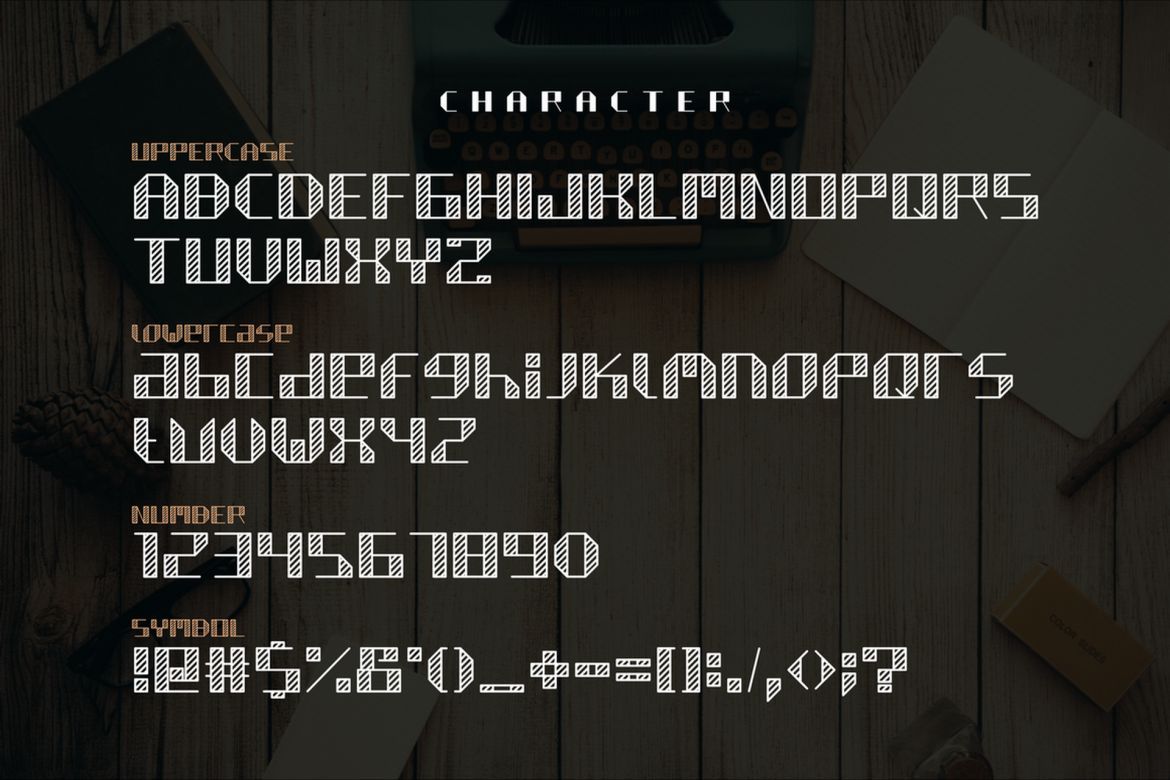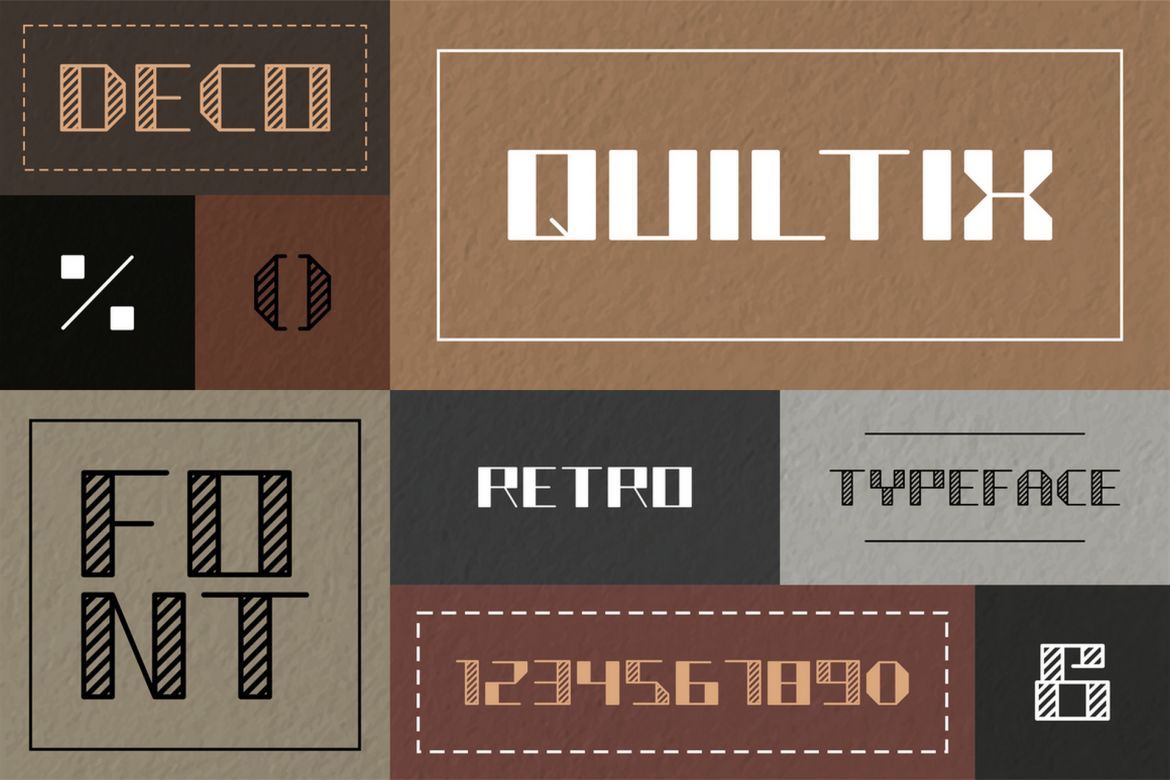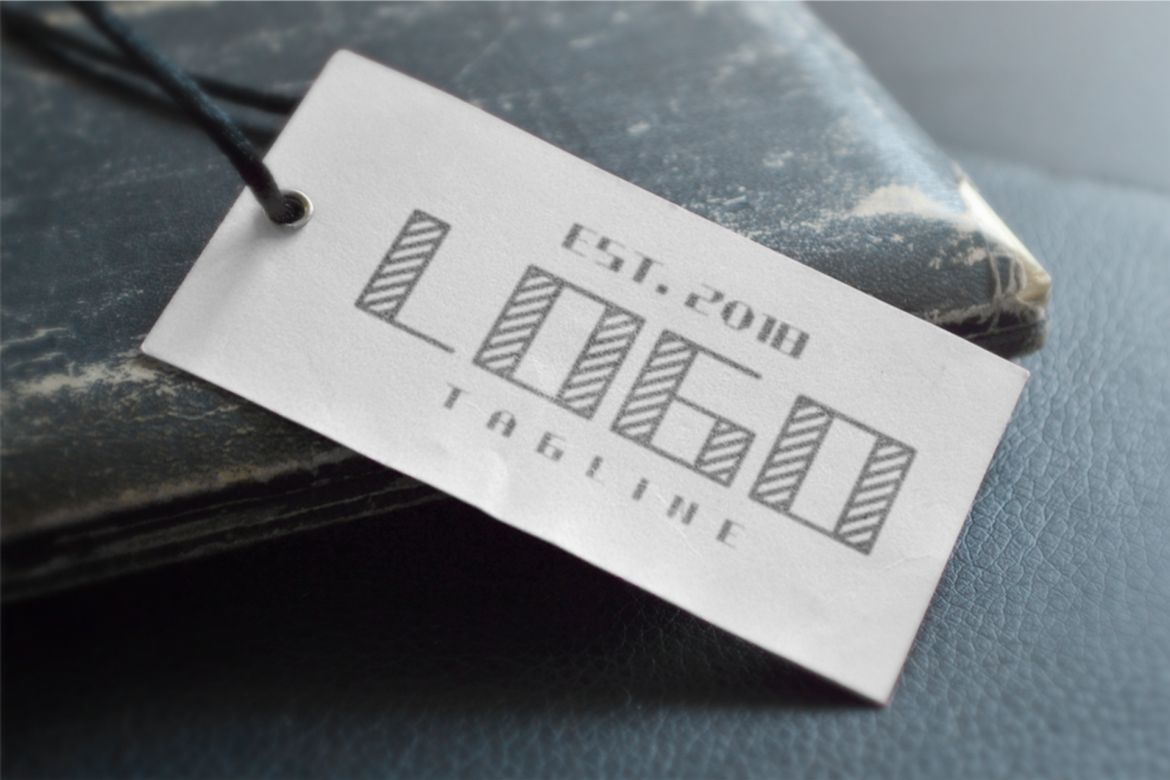
Quiltix Display Font
Quiltix is a unique typeface with uppercase and lowercase letters, numbers and punctuation. Ideal for decoration of your vintage and retro products, also works well in logos, posters, booklet, flyer, gift certificate.
• lowercase
• number & symbol
• uppercase